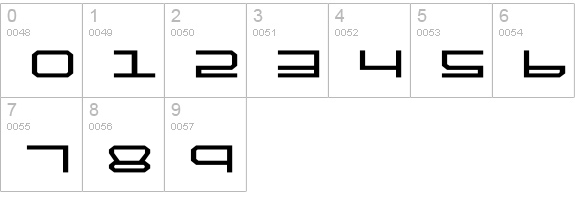
Introducing QuickTech, a dynamic and versatile font that effortlessly combines the essence of modernity with a touch of tech-savvy sophistication. Designed to meet the demands of the digital age, QuickTech is the perfect choice for those seeking a font that exudes professionalism, creativity, and innovation. With its sleek and streamlined appearance, QuickTech captivates the eye with its clean lines and contemporary aesthetics. Its bold and sharp letterforms command attention, making it ideal for headlines, logos, and branding materials. Whether used in print or on-screen, QuickTech delivers a powerful visual impact that leaves a lasting impression. But what truly sets QuickTech apart is its unrivaled versatility. This font effortlessly adapts to a myriad of design projects, from websites and apps to posters and brochures. Its wide range of weights and styles allows for endless creative possibilities, ensuring that your message is conveyed with utmost clarity and style. And the best part? QuickTech is absolutely free! That's right, this remarkable font is freely available to download at FontsMarket.com. Say goodbye to expensive licensing fees and hello to a font that not only elevates your designs but also fits seamlessly into your budget. So, whether you're a graphic designer, web developer, or simply someone in search of a font that embodies the spirit of innovation, QuickTech is the font for you. Download it today and unlock a world of creative possibilities that are both visually striking and cost-effective. Embrace the future of typography with QuickTech - the font that combines style, versatility, and affordability.